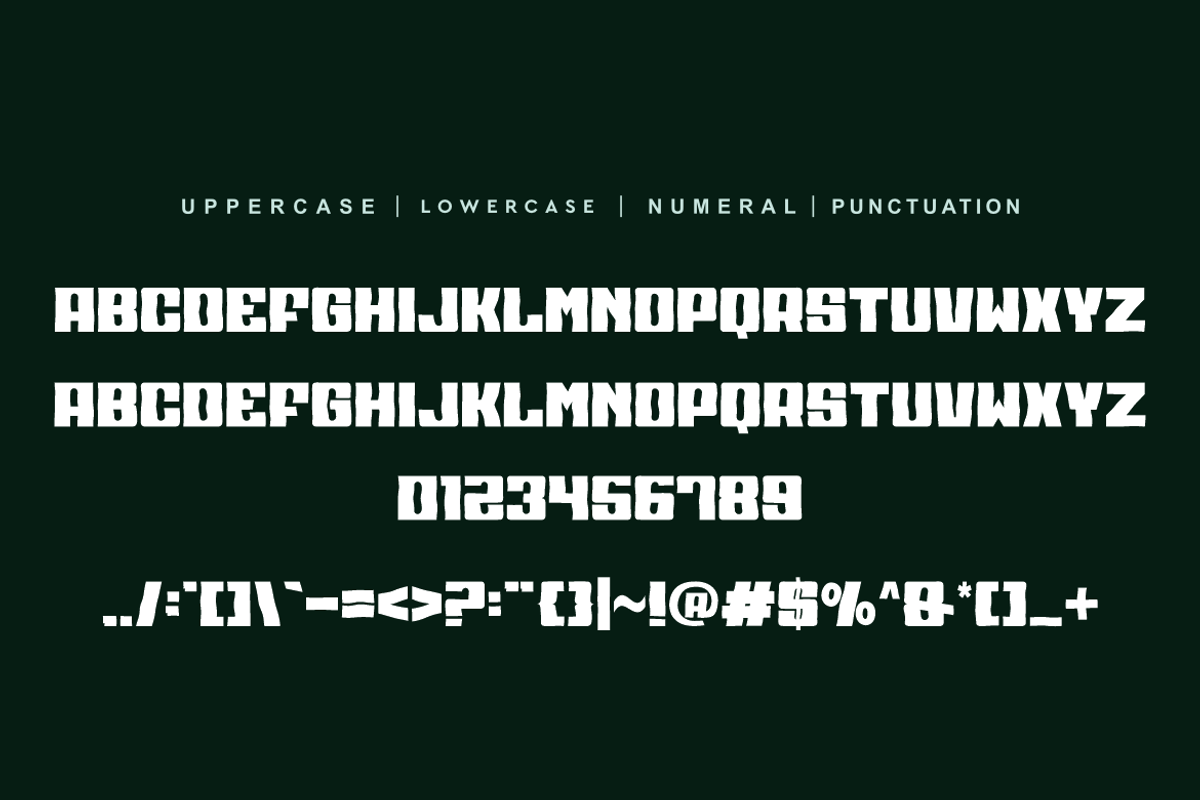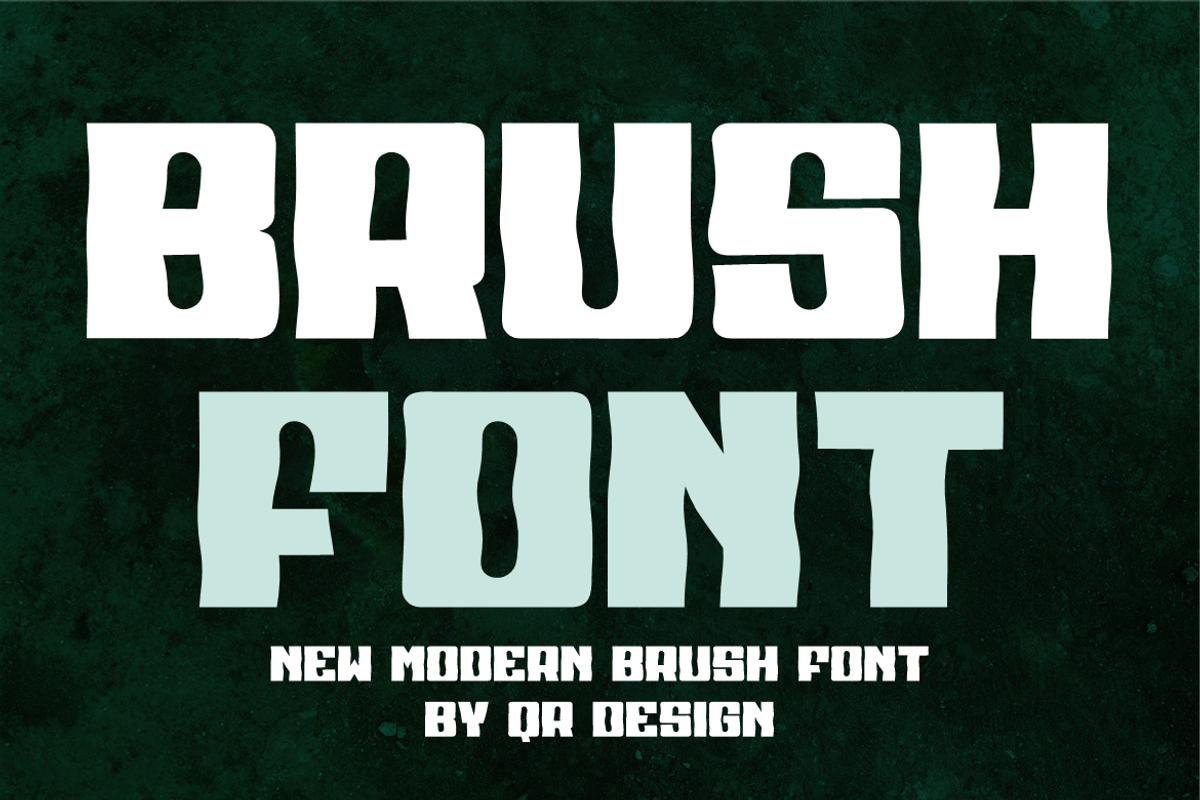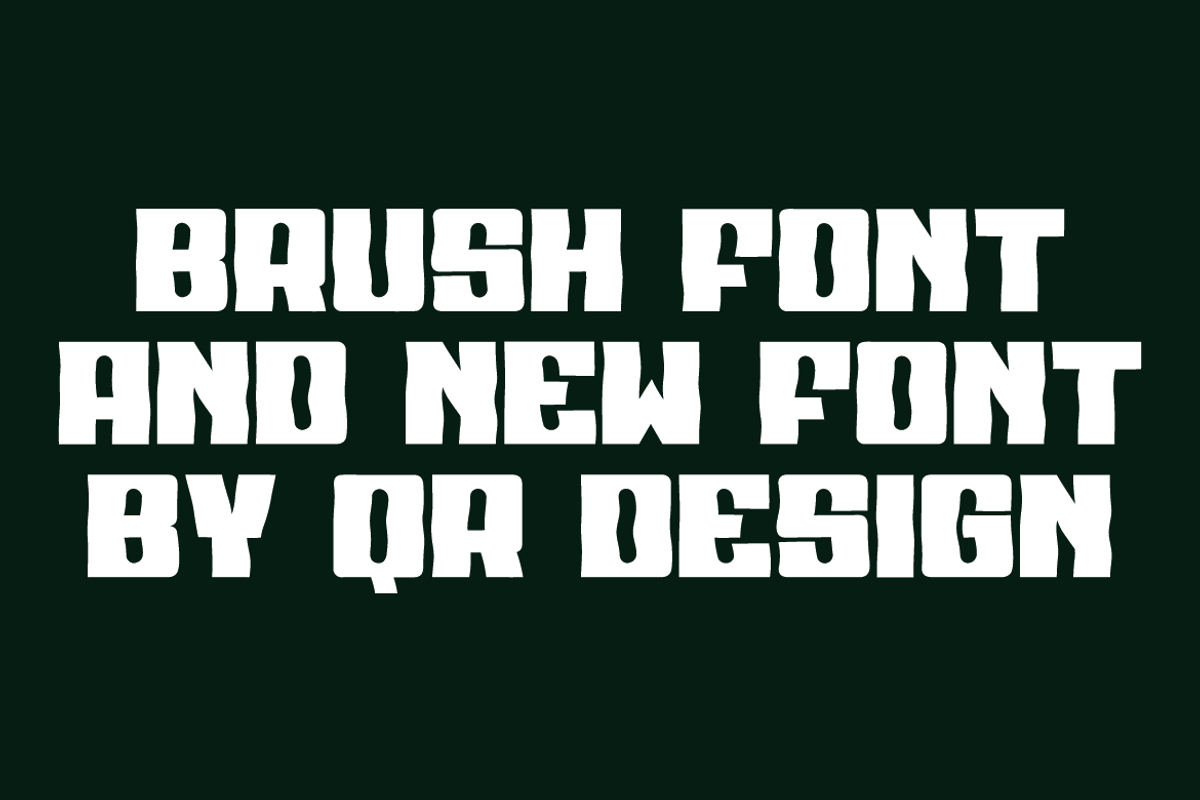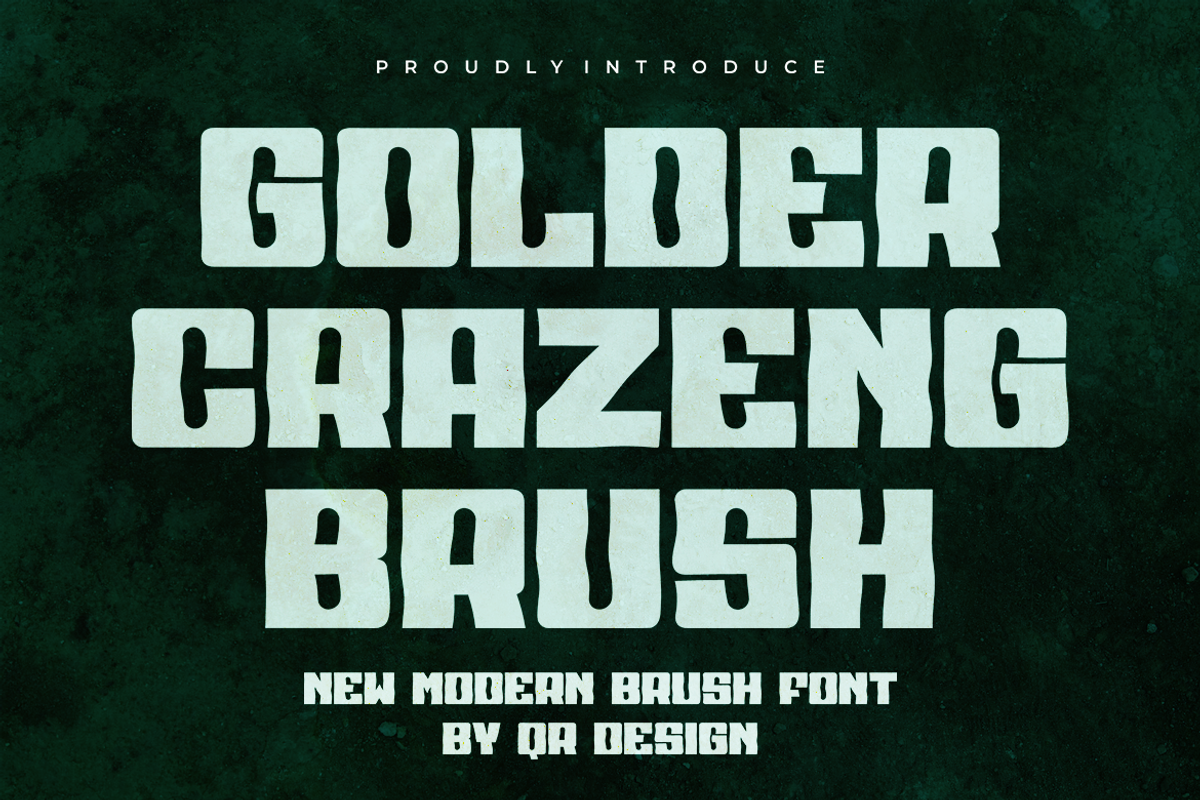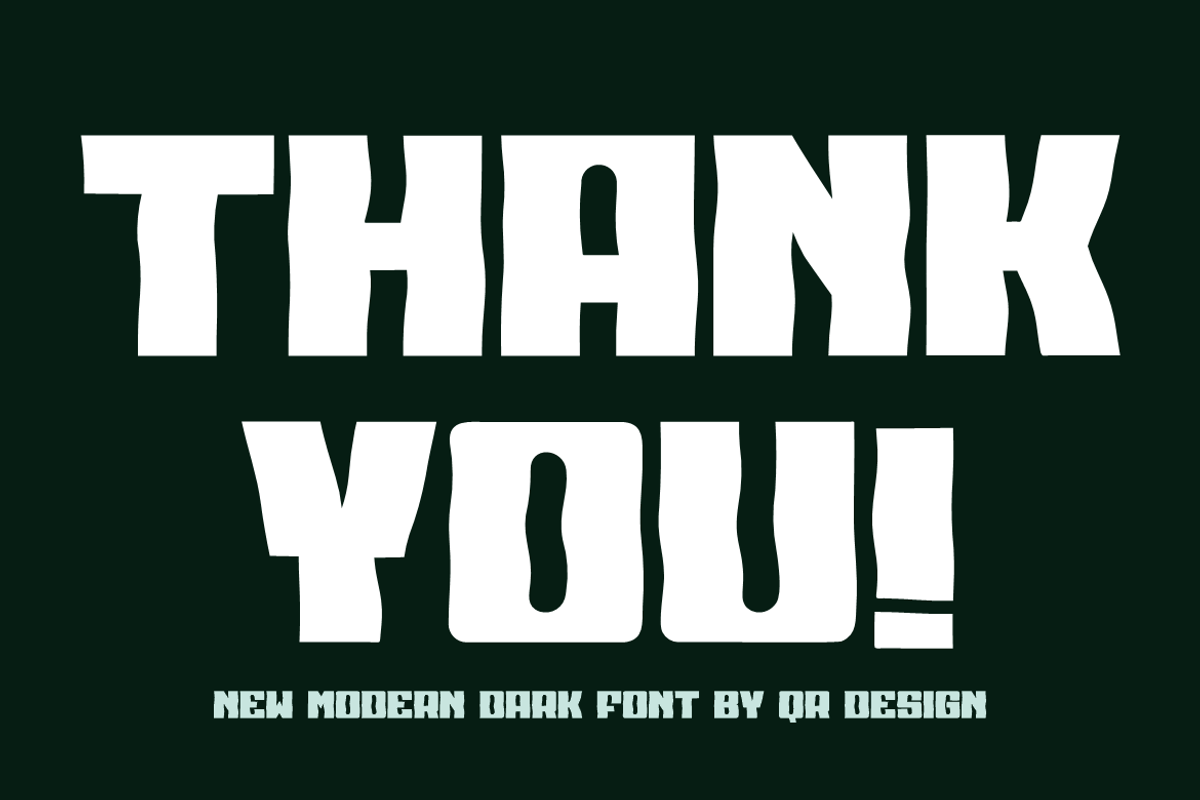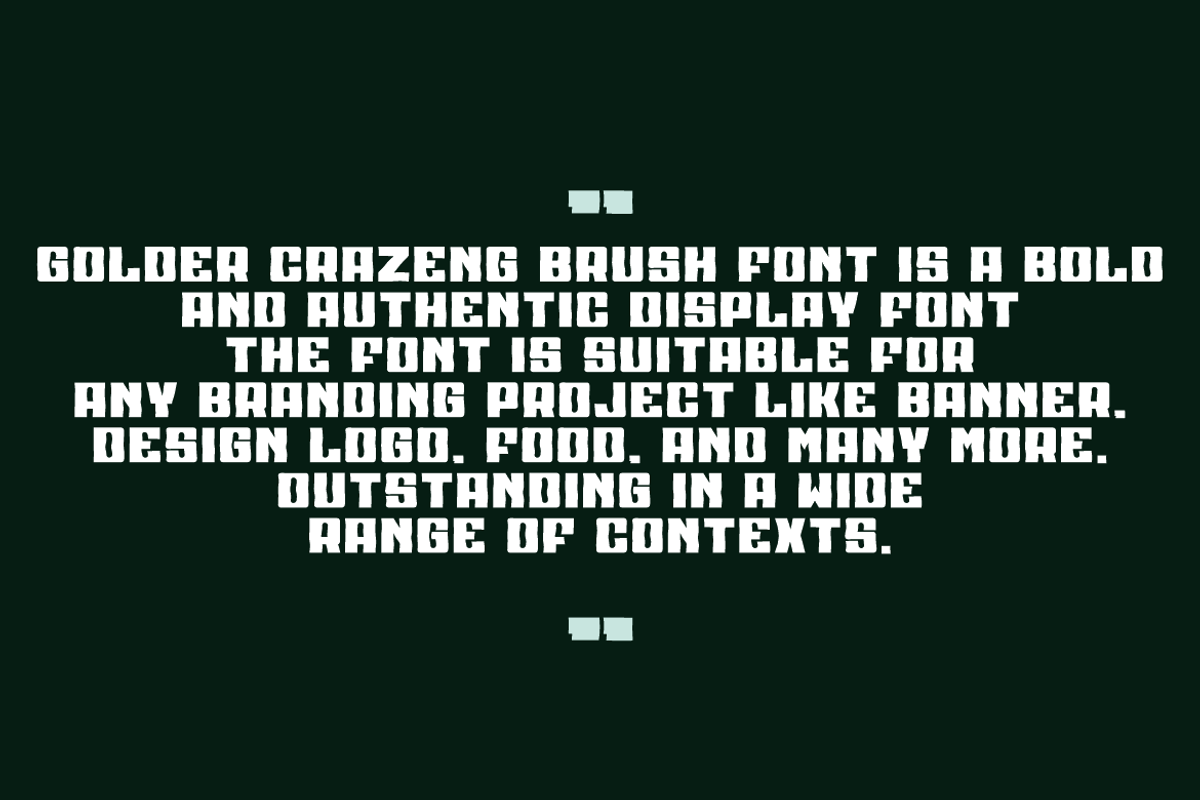
Golder Crazeng Brush
Golder Crazeng Brush Font is a bold and authentic display font. The font is suitable for any branding project like logo, sport, food, and many more. Outstanding in a wide range of contexts.